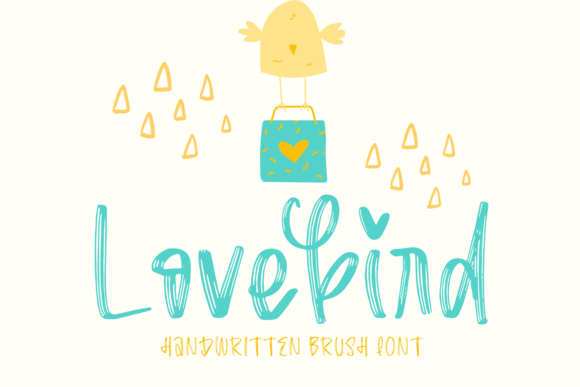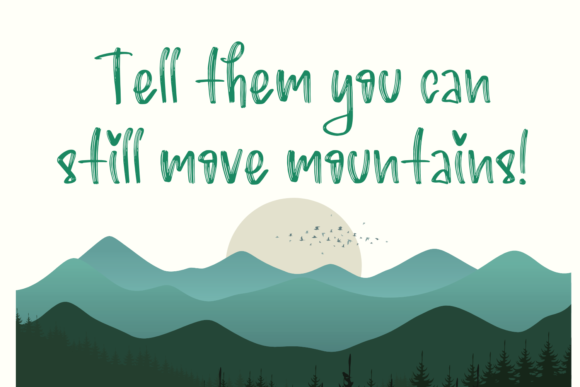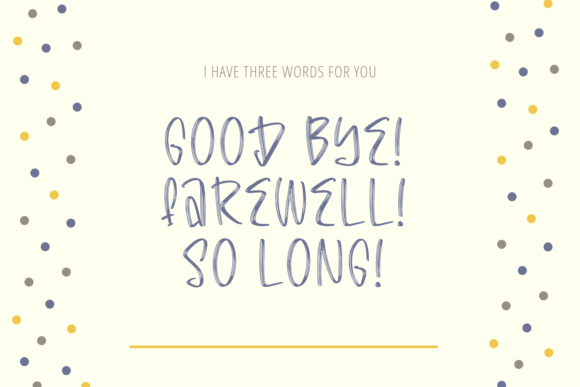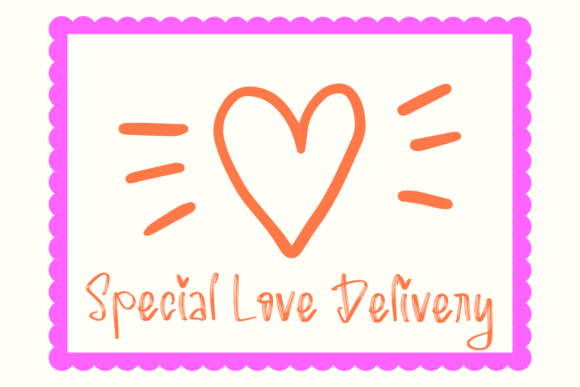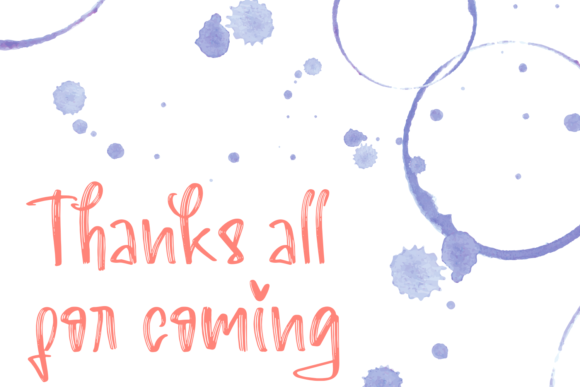
Lovebird Font
About Lovebird Font
Lovebird is a sweet and friendly handwritten font. Its natural and unique style makes it incredibly fitting for a large pool of designs. The only limit is your imagination!